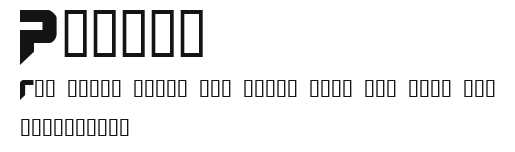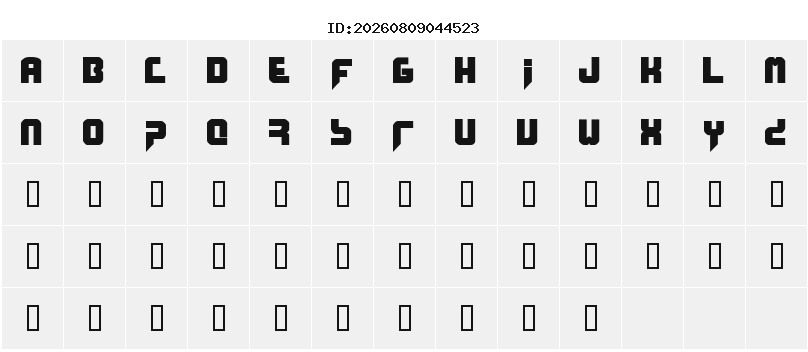
• Font Name: Phobos
• Full Font Name: Phobos
About Phobos.ttf
Phobos.ttf is a modern, elegant sans-serif font designed for ultimate readability and visual harmony. Perfect for branding, headlines, web design, and print materials.